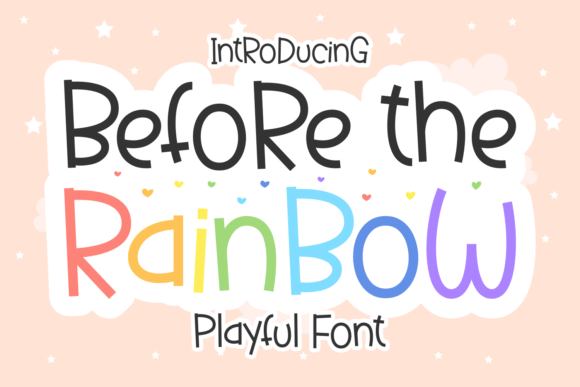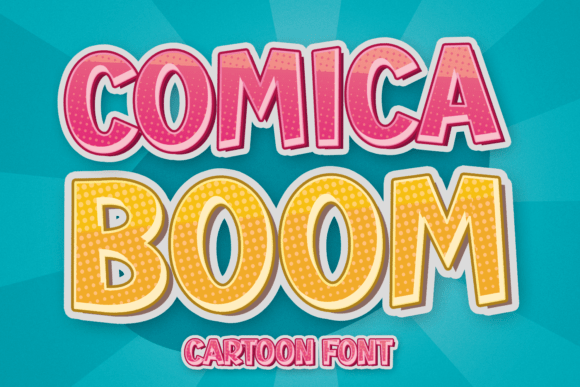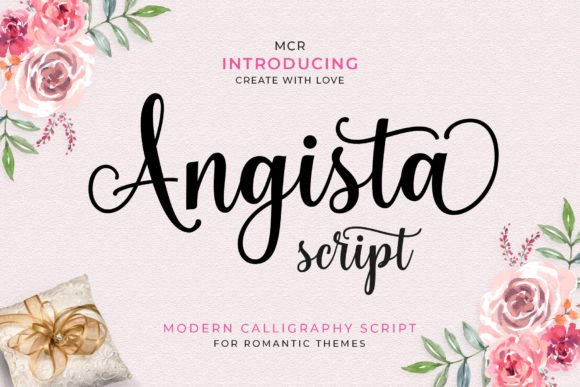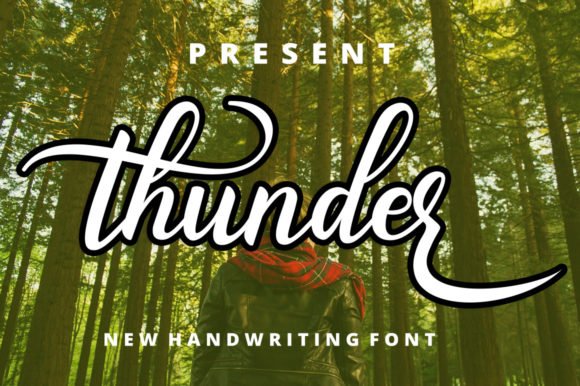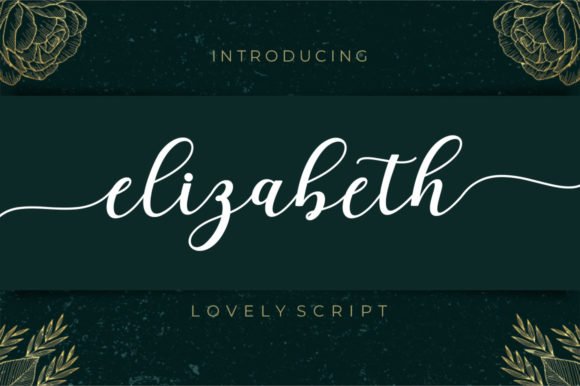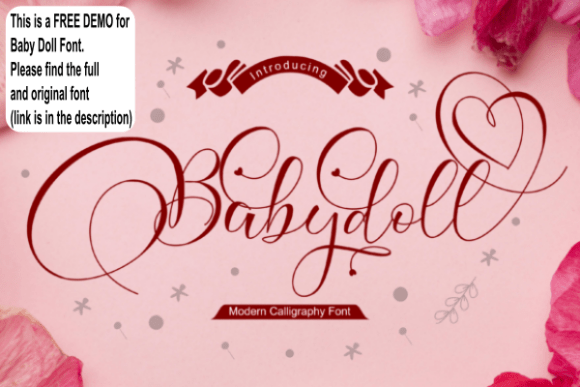
Typography is the silent voice of every design. The right font doesn’t just carry words – it sets a mood, tells a story, and creates an emotional connection before the reader processes a single sentence. Whether you’re a seasoned graphic designer or just starting out, having a library of beautiful, versatile fonts at your fingertips makes all the difference. Here are 16 of the most popular free fonts designers are reaching for right now – collected in one place, ready to download, and completely free. Let’s dive in.
1. Lightning Script Font
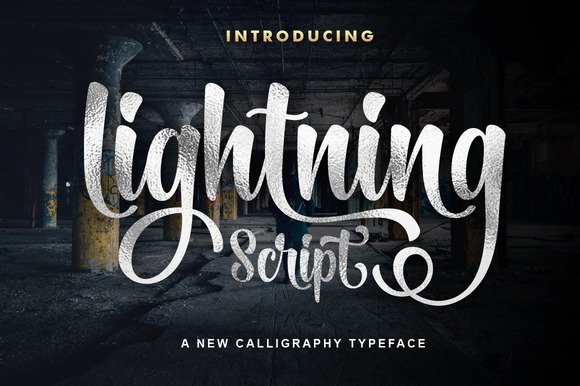
There’s an electric quality to Lightning Script that makes it immediately stand out from the crowd of handwritten typefaces. Its brushstroke-like characters carry genuine momentum – each letter flowing into the next with the kind of confident energy you’d expect from a premium font, not a free one. It’s this combination of spontaneity and control that makes Lightning Script such a reliable choice for professional design work.
The font performs beautifully across branding materials, custom signage, packaging labels, and social media graphics. Its well-spaced letterforms prevent crowding even in longer words, and the overall legibility stays strong whether you’re printing at business-card scale or blowing it up for a banner. Pair it with a geometric sans-serif for contemporary contrast, or let it stand alone against a clean background for maximum impact. Lightning Script is the kind of freebie that feels too good to be free.
My Recommendation: A genuine workhorse for designers who need handwritten energy without sacrificing readability. Lightning Script earns its place as a permanent fixture in any design toolkit. Best for boutique branding, event invitations, artisan product labels, and lifestyle social content.
2. Loving Font
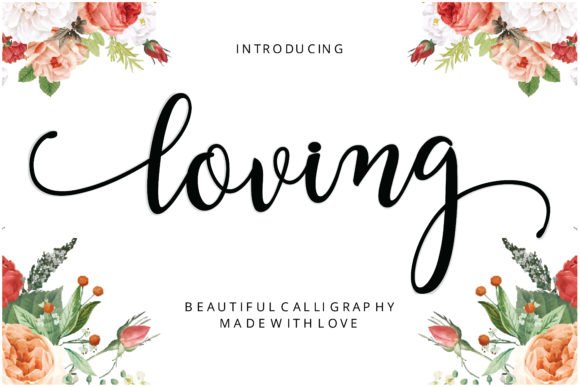
Some fonts just make you feel something the moment you look at them – Loving is exactly that kind of typeface. Built around a playful romantic personality, its fluid letterforms carry warmth and approachability that translate beautifully across a huge range of design contexts. This isn’t just a Valentine’s Day font; it’s a year-round creative asset for anyone working on content that needs genuine emotional resonance.
Loving handles itself well at both headline and subheading sizes, maintaining its cheerful character without becoming illegible or cluttered. It’s an especially strong performer on greeting card designs, romantic packaging, wedding welcome boards, and lifestyle brand social posts. The natural bounce in its baseline gives compositions a lively, handmade feel that digital design sometimes struggles to achieve. Simple to use, satisfying to work with, and genuinely lovely to look at.
My Recommendation: Loving is the smart pick for designers working across romantic, celebratory, and lifestyle content categories. Its versatility is its superpower – equally at home on a wedding arch banner and a small-batch jam label. Download it once and reach for it constantly.
3. Anastasia Font
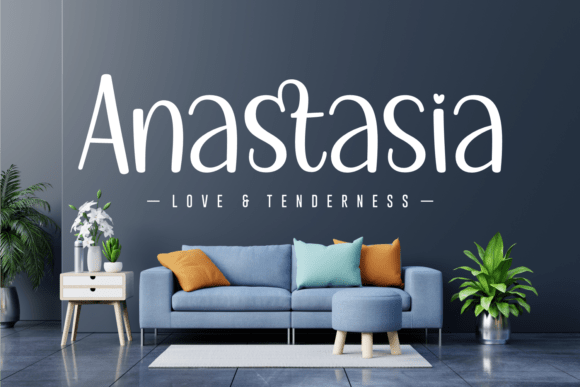
Anastasia brings a gentle, expressive handwritten energy that feels both joyful and carefully crafted. The rounded, well-formed characters have a natural rhythm that makes them pleasant to read in quantity – a real advantage over some handwritten fonts that look beautiful in isolation but become visually tiring across multiple lines. This consistency makes Anastasia particularly valuable for longer text applications like multi-line quotes, layered greeting card copy, or product descriptions.
The font’s character lends itself to a romantic, celebratory aesthetic that works across personal stationery, boutique branding, event graphics, and craft product packaging. Its proportions are generous and clear, which helps maintain legibility even on ornate or textured backgrounds. Keep in mind that Anastasia is not Canva-compatible, so plan to use it in Illustrator, Photoshop, Affinity Designer, or a similar tool where it can perform at its best.
My Recommendation: Anastasia is a thoughtfully designed handwritten font that rewards designers who take the time to use it well. Excellent for greeting card makers, wedding stationery designers, and boutique brand builders. Just be sure to use it outside of Canva for the best results.
4. Mylove Font
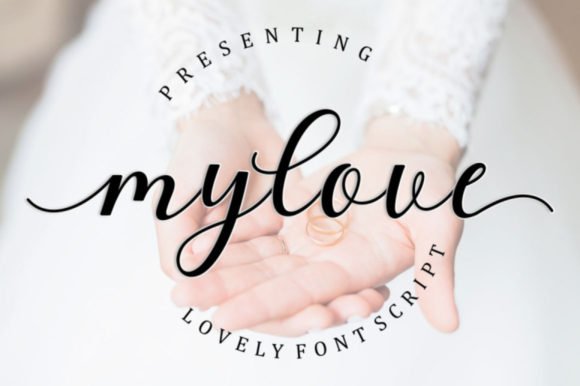
Mylove is precisely what its name promises – a font built entirely around delicacy, romance, and flowing elegance. Every character seems to move with a lightness that feels almost weightless on the page, making it one of the most refined handwritten options in this roundup. The thin, graceful strokes are genuinely beautiful, and the overall impression is one of effortless sophistication that belies the fact that this typeface is completely free.
The practical bonus here is PUA encoding, which opens up the full library of glyphs and swashes for any designer regardless of their software workflow. The swashes deserve special attention – they’re genuinely decorative and versatile, offering everything from simple flourished initials to sweeping ornamental tails that can anchor an entire composition. If your work lives in the world of weddings, romance, or feminine lifestyle, Mylove belongs in your font folder.
Download the ones that speak to your creative instincts, experiment with combinations you haven’t tried before, and let great typography do what it does best: make everything you design more beautiful, more meaningful, and more effective.